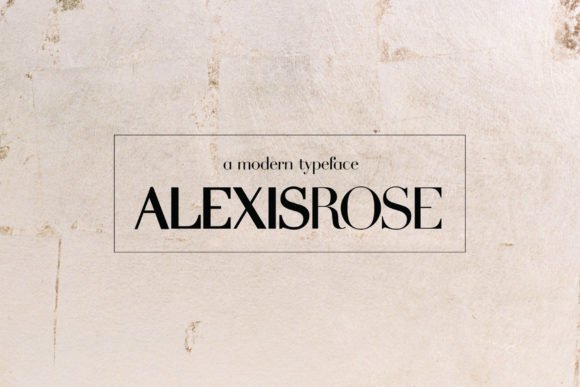
Introduction to Alexis Rose Font
Alexis Rose is an elegant, assertive and authentic serif font.
Add it confidently to your projects, and you will love the results .
Key Features of Alexis Rose Font
Why Choose Alexis Rose Font?
Alexis Rose Font offers exceptional quality and versatility, making it a valuable addition to your design toolkit. Whether you’re creating for personal projects or commercial use, Alexis Rose Font delivers professional results.